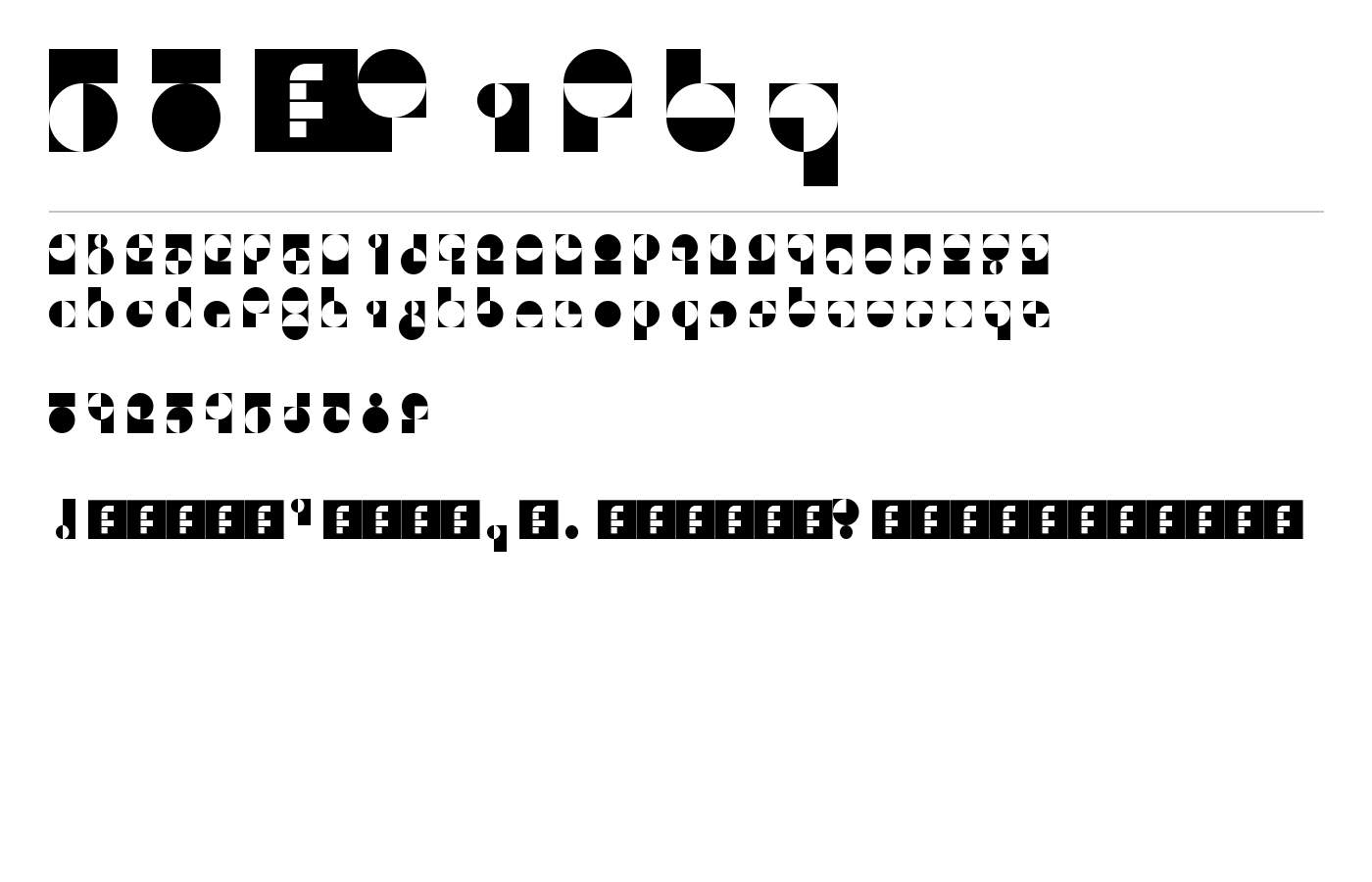
50/fifty is an avant-garde geometric sans serif font characterized by its bold, blocky shapes and striking high-contrast black-and-white divisions within each letterform. The font’s modular, almost pixelated style creates a distinctive, futuristic look that works well for modern branding, eye-catching headlines, and creative display use where an edgy, experimental vibe is desired. Its unique cut-out aesthetic makes it perfect for artistic projects and innovative design statements that need a strong visual impact.
50/fifty Font
About 50/fifty Font